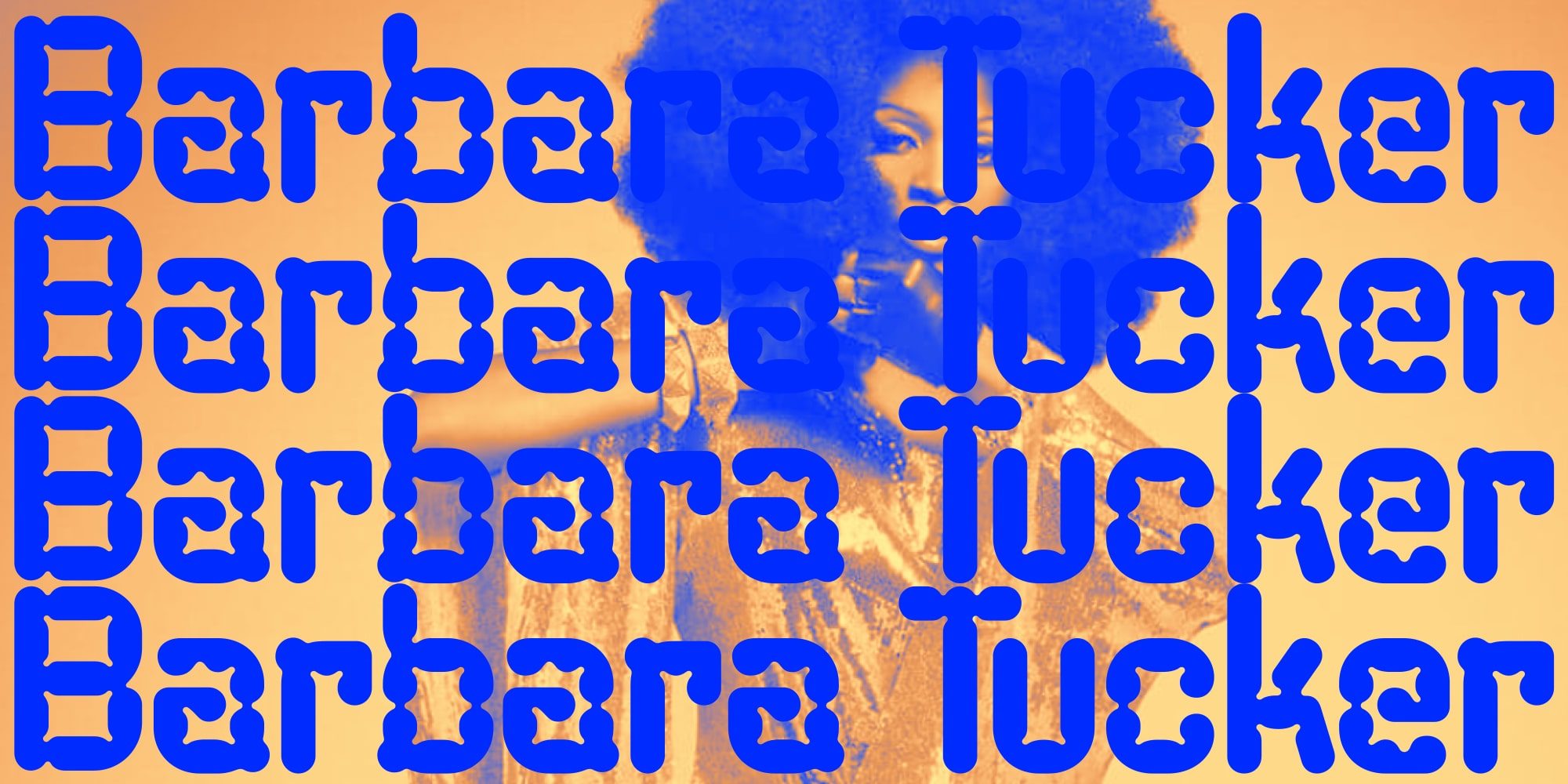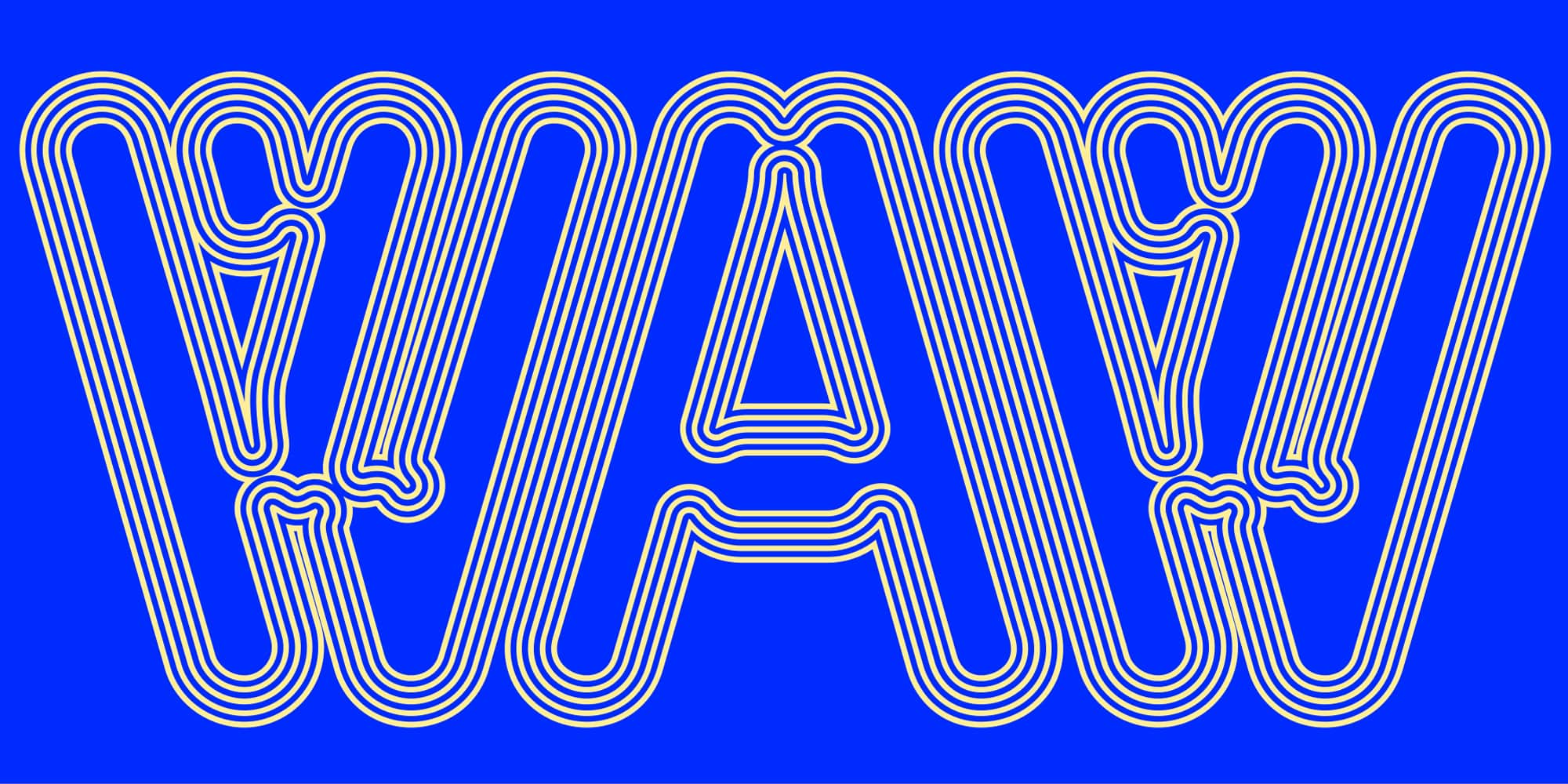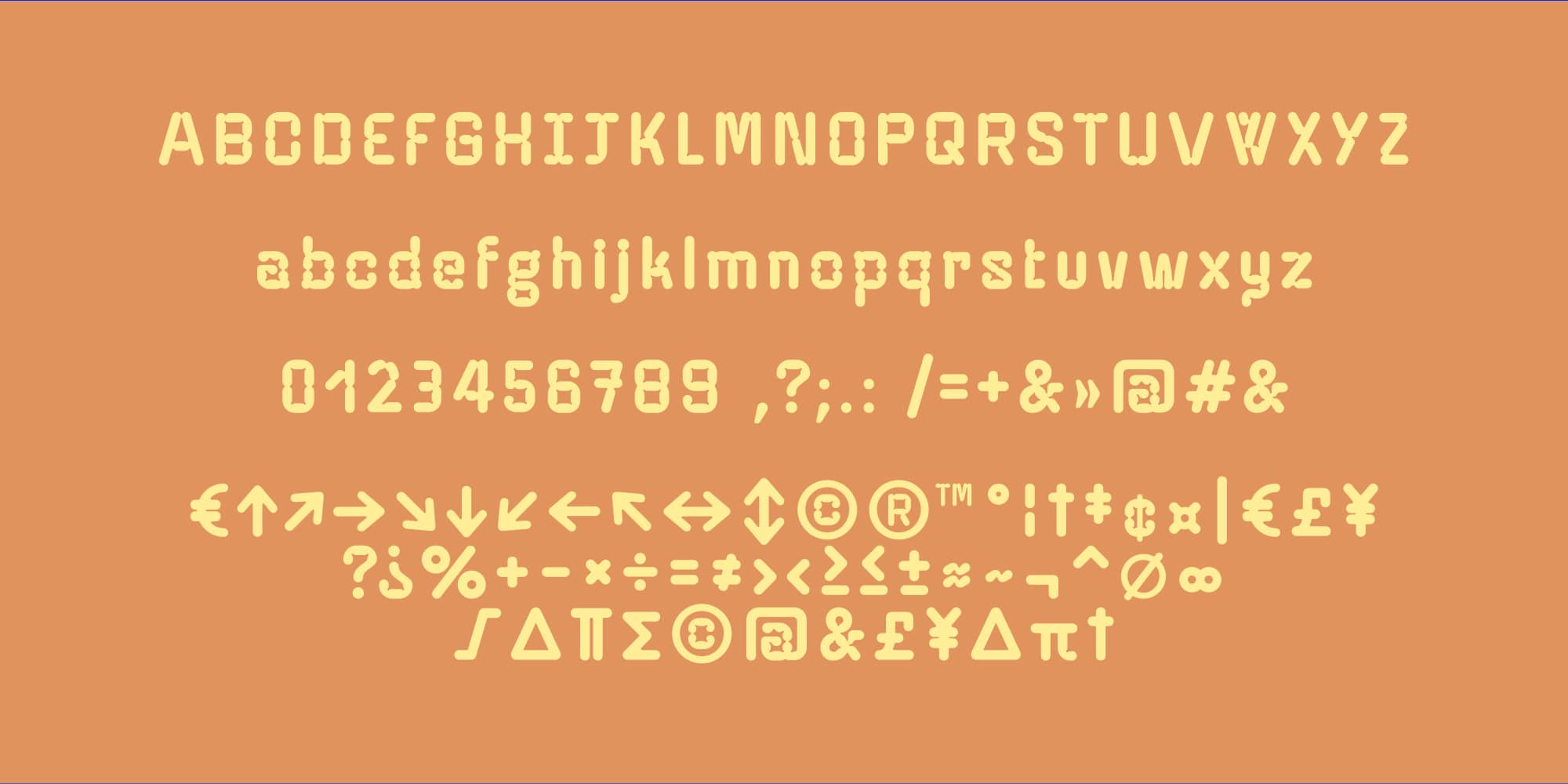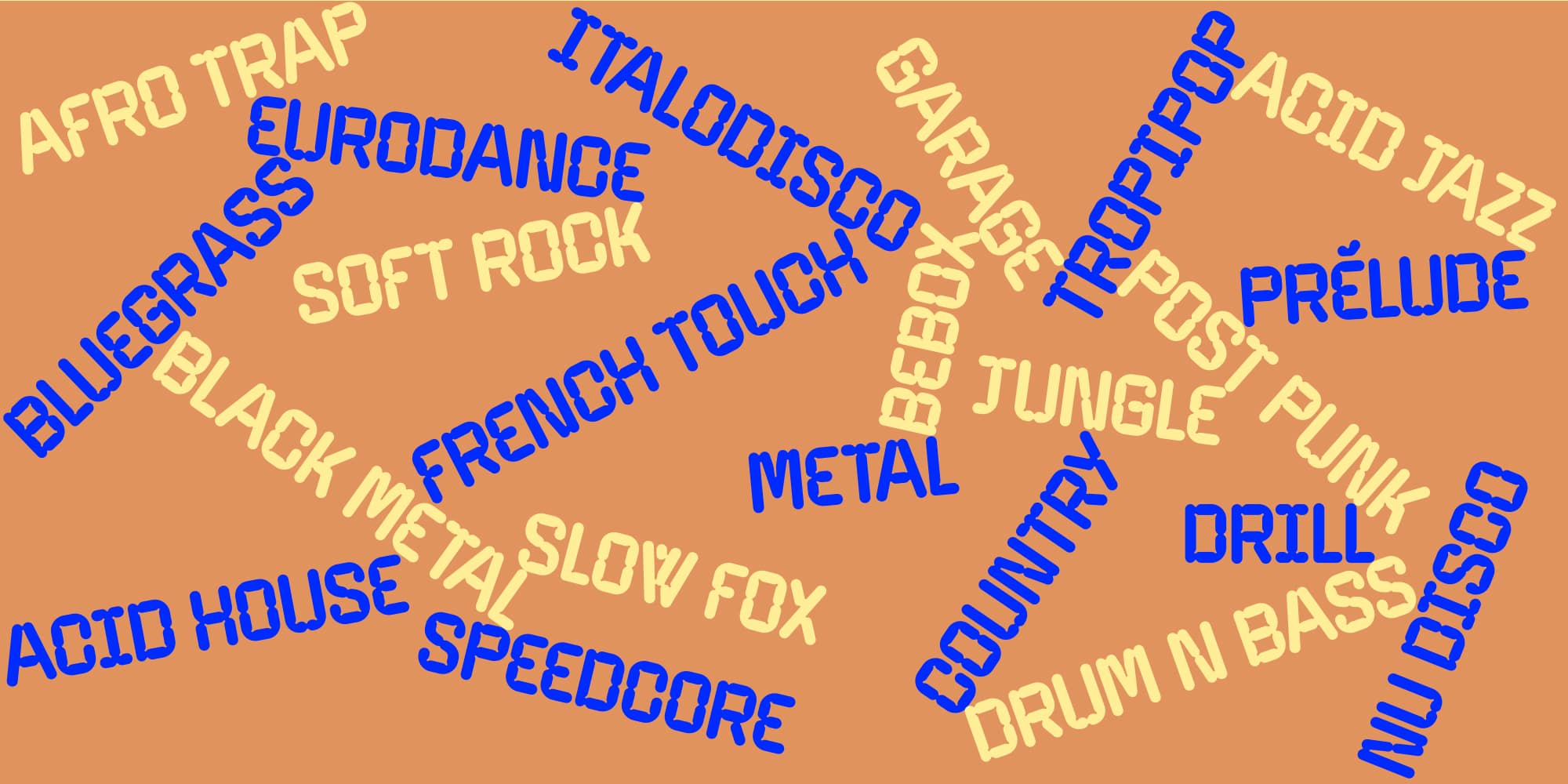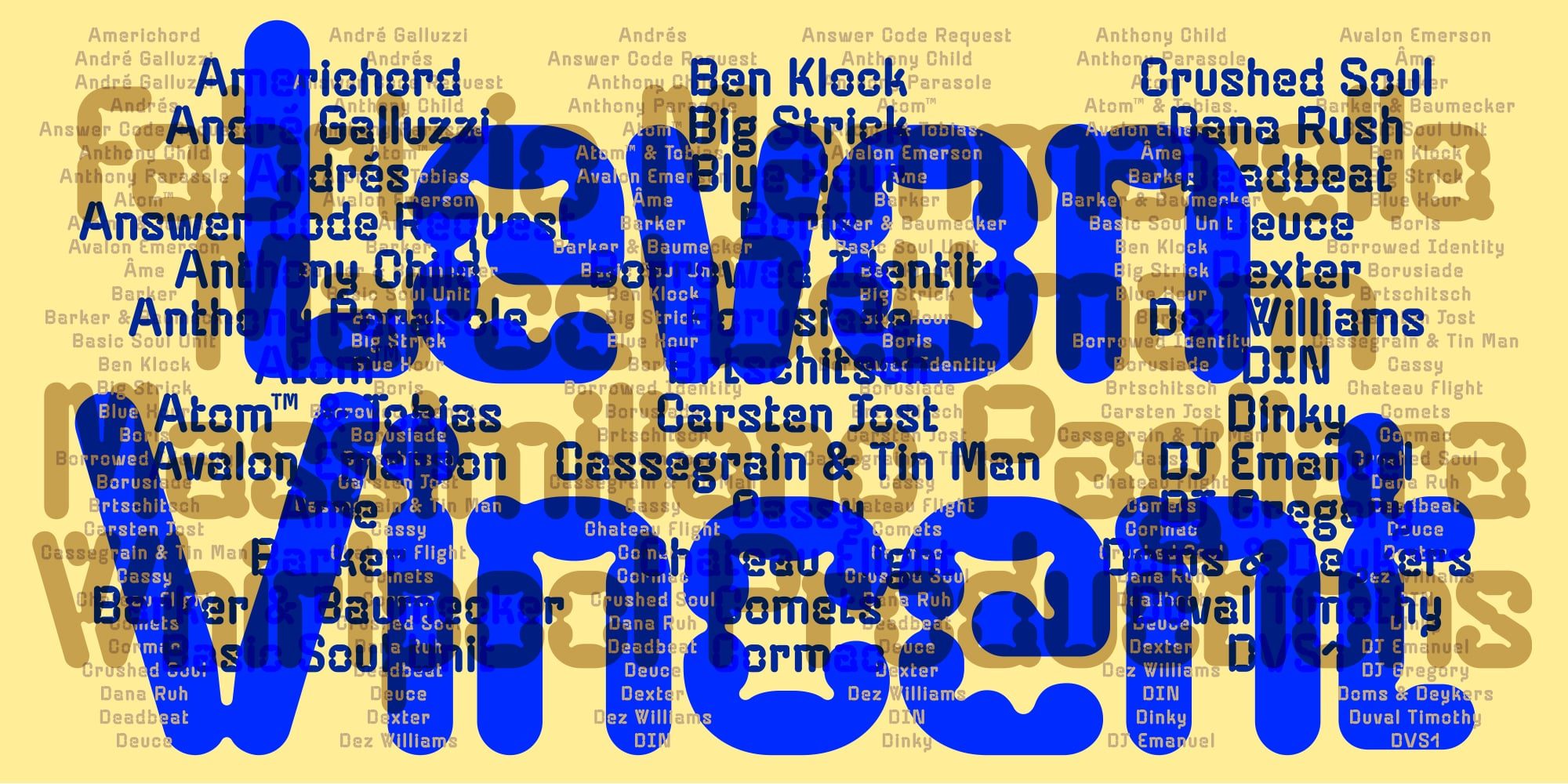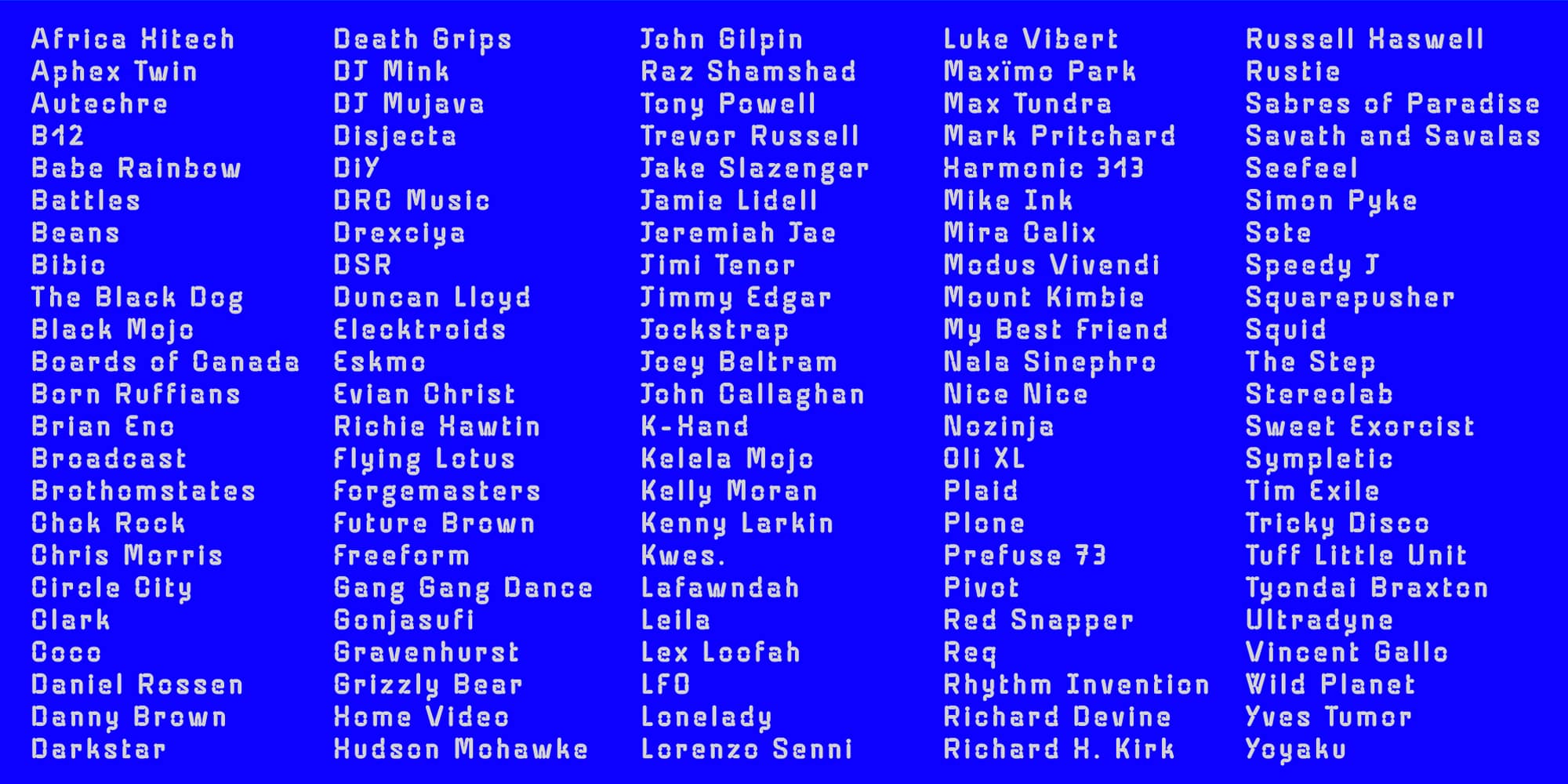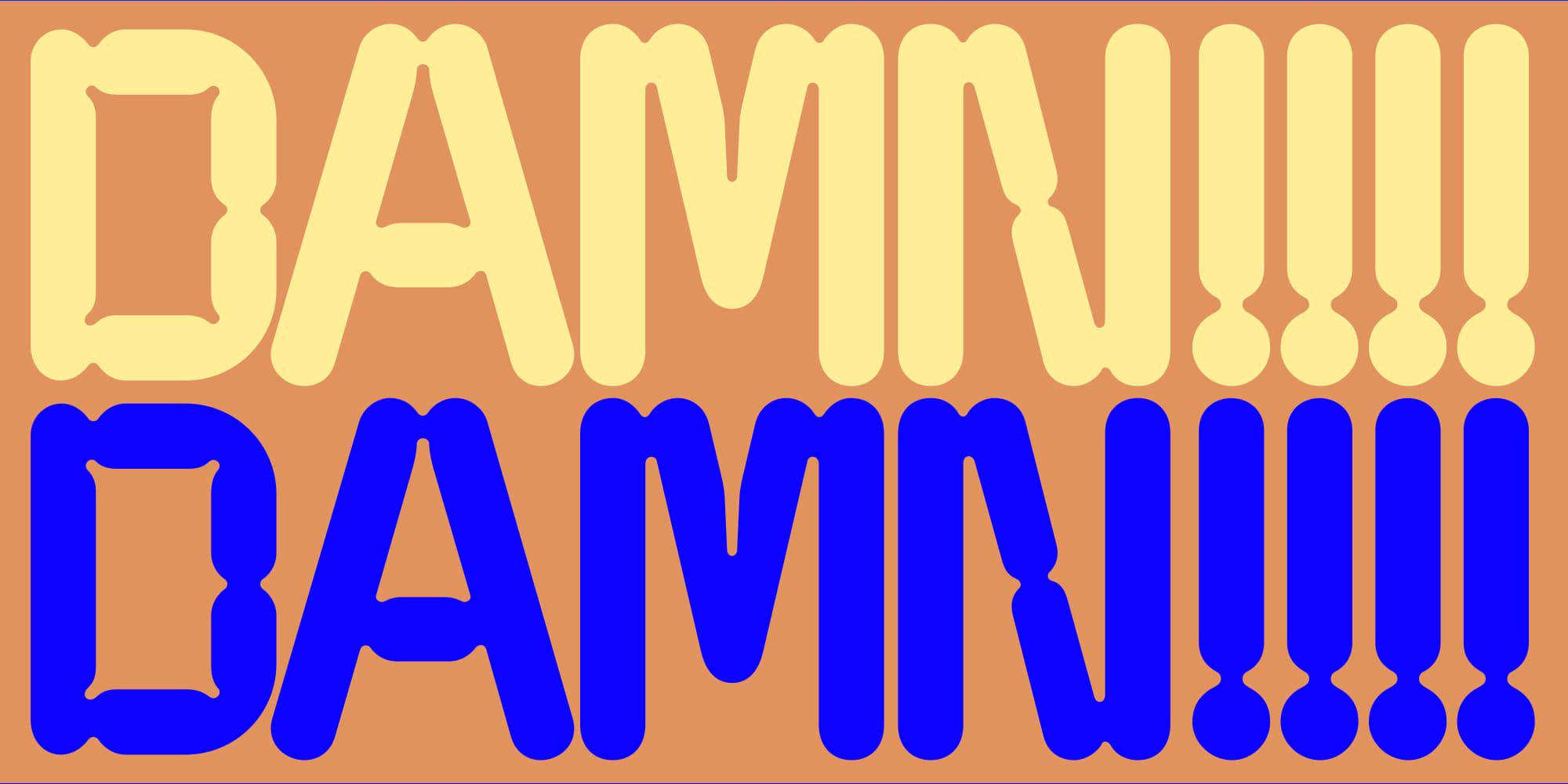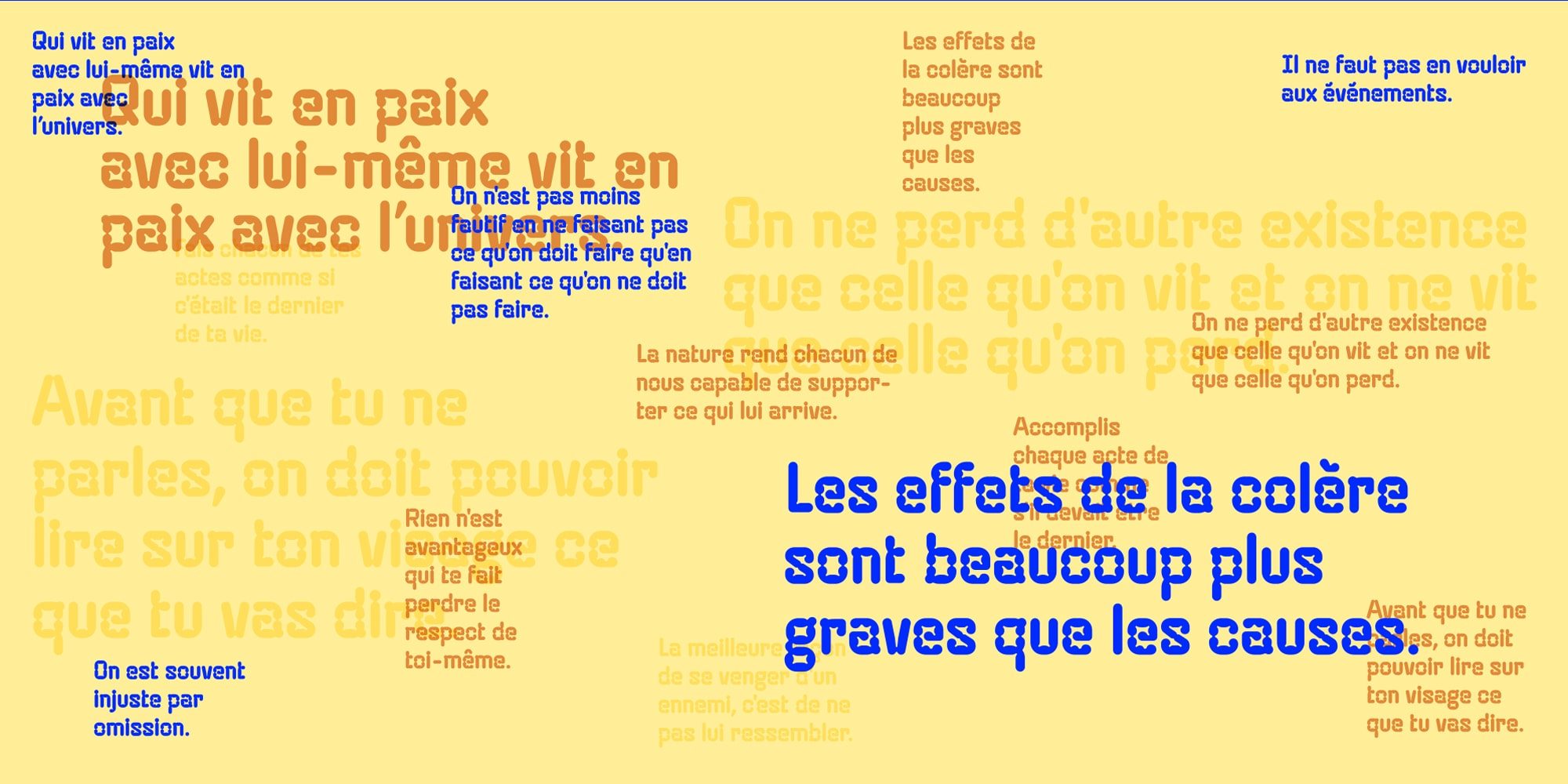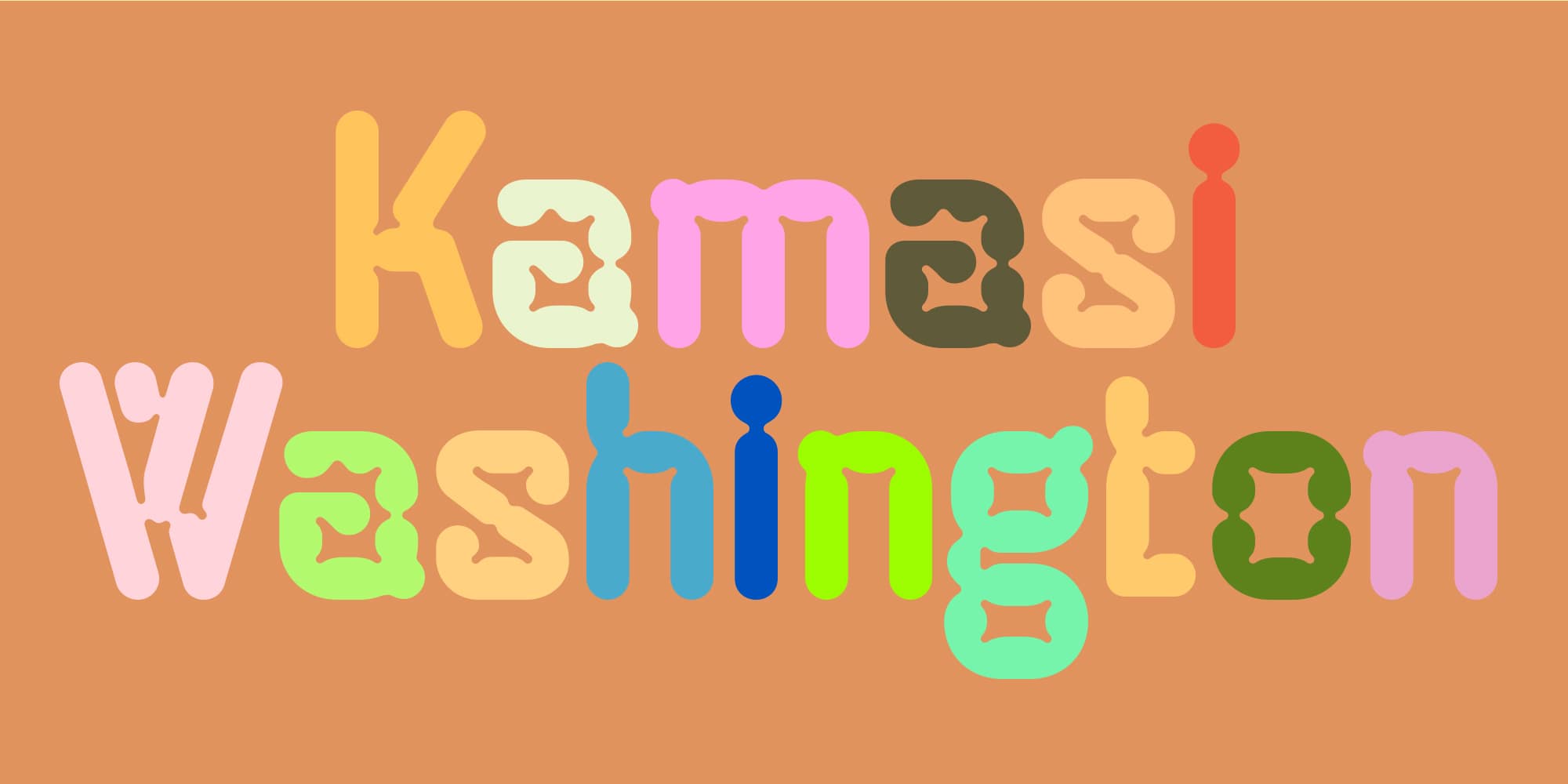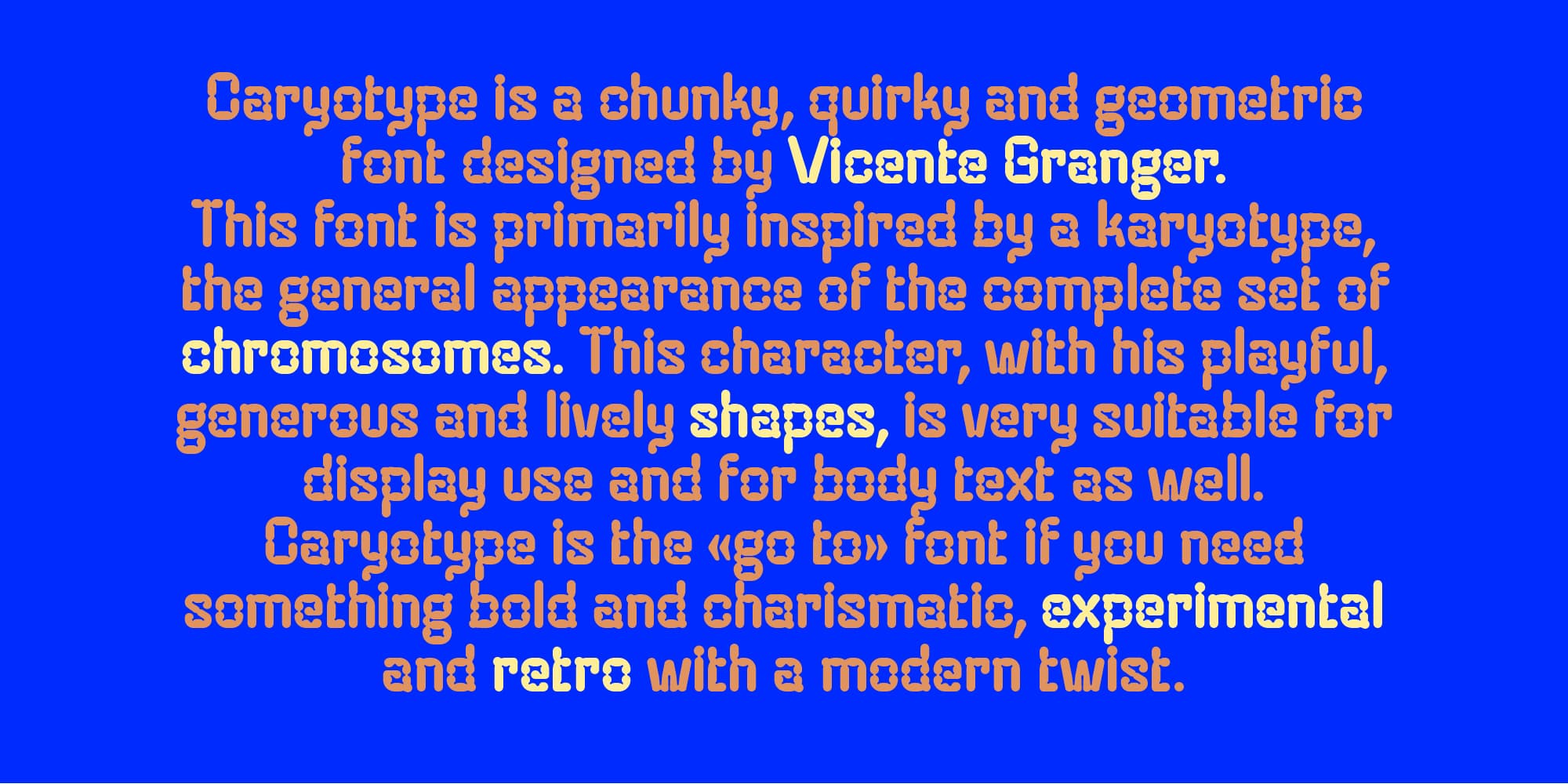
Caryotype
Caryotype is a chunky, quirky and geometric font designed by Vicente Granger. This font is primarily inspired by a karyotype, the general appearance of the complete set of chromosomes. This character, with his playful, generous and lively shapes, is very suitable for display use and for body text as well. Caryotype is the «go to» font if you need something bold and charismatic, experimental and retro with a modern twist.
Vicente Granger